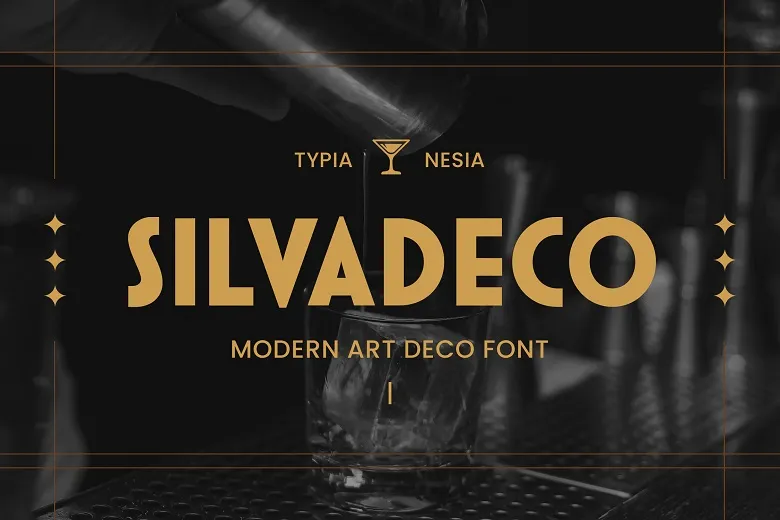
Silvadeco Font is an art deco style font that has a modern design but with the feel of the deco age. Its geometric shapes convey luxury and contemporaneousness, and it is ideal for use in projects that have to be fashionable and audacious.